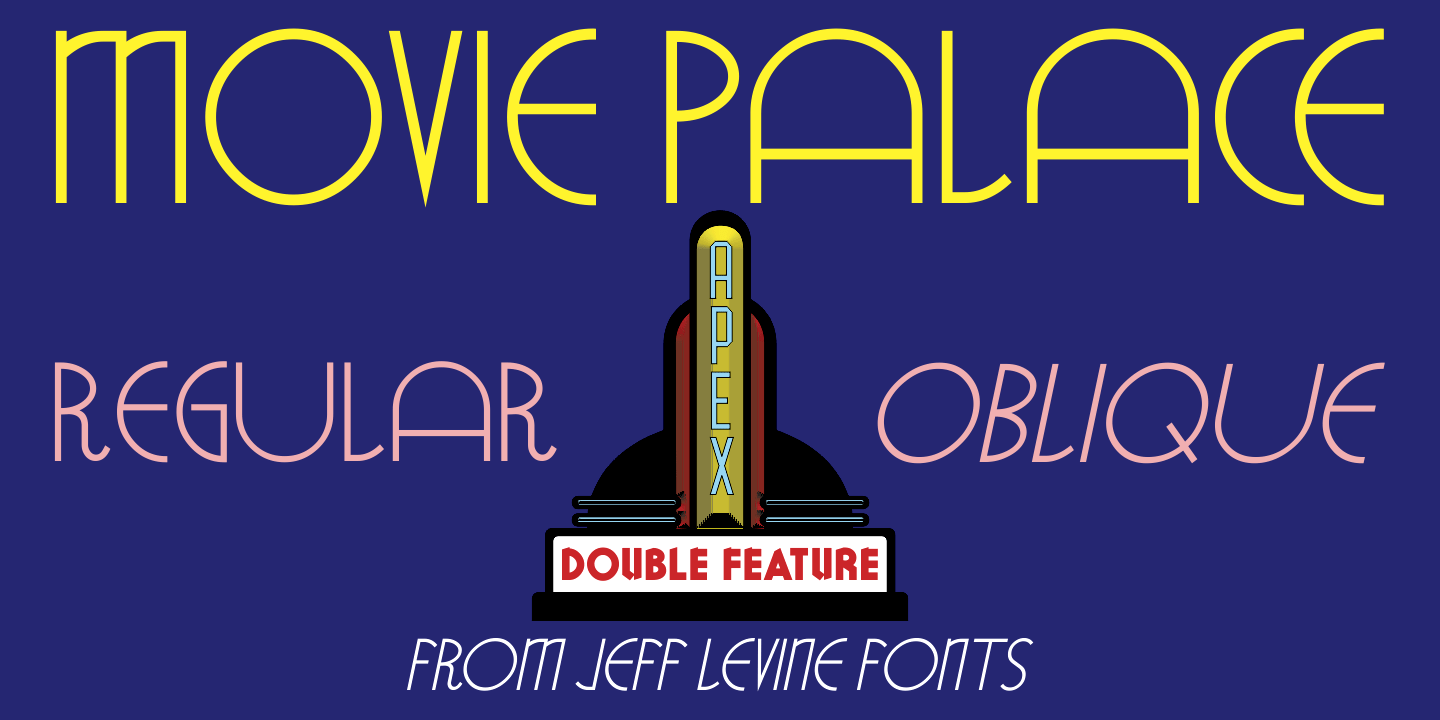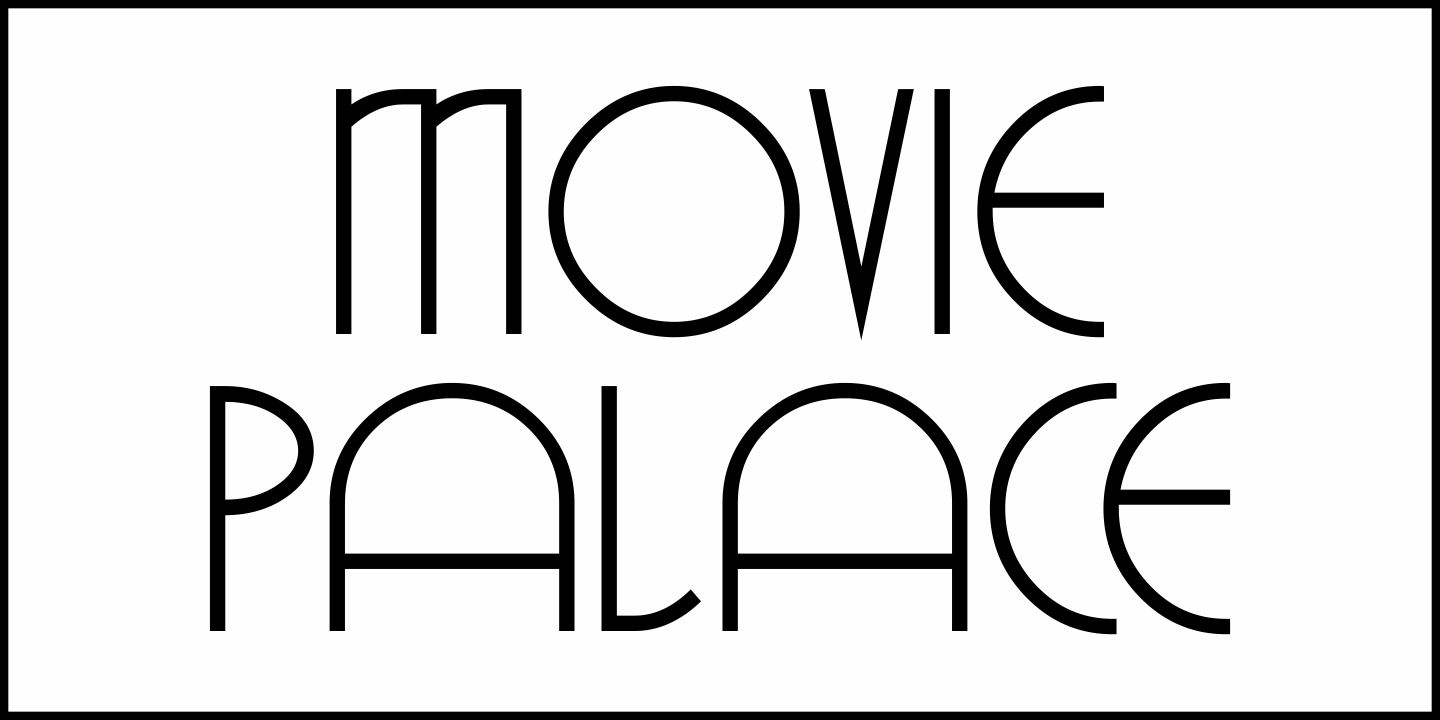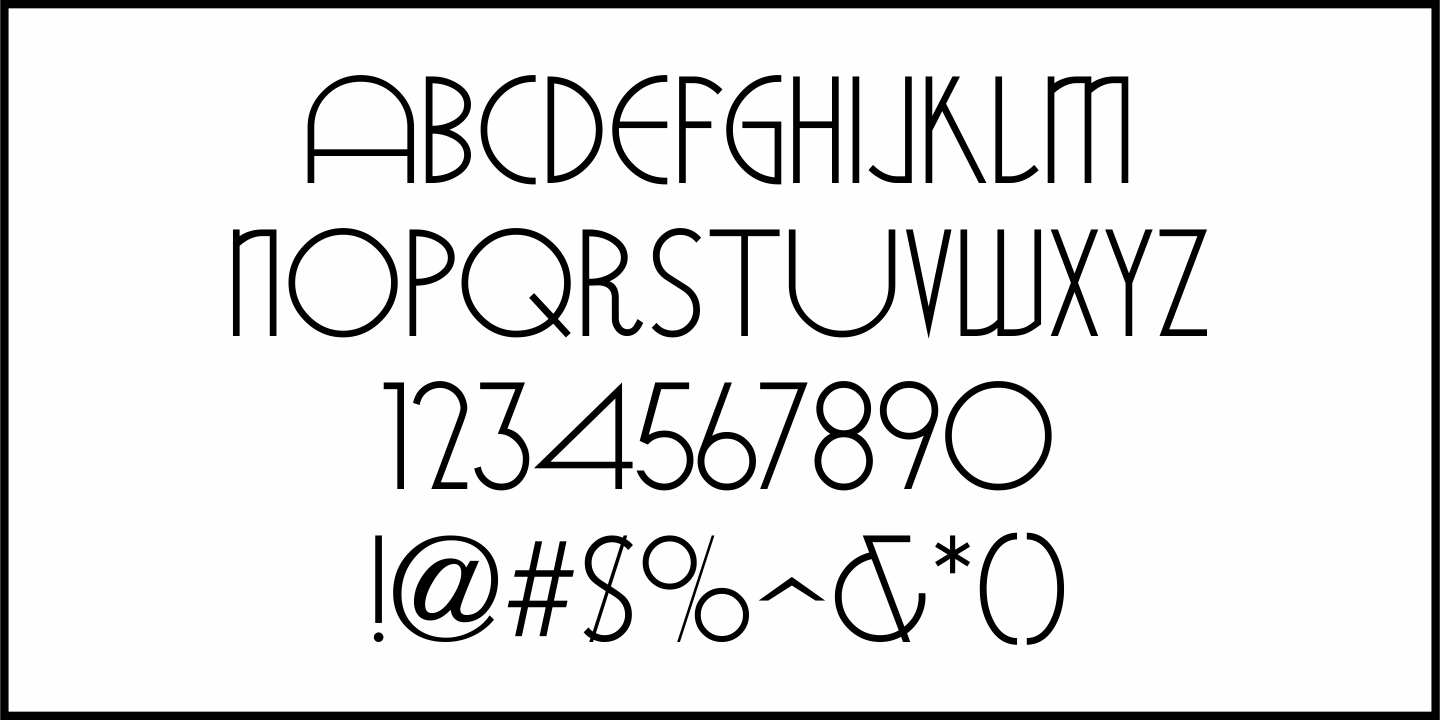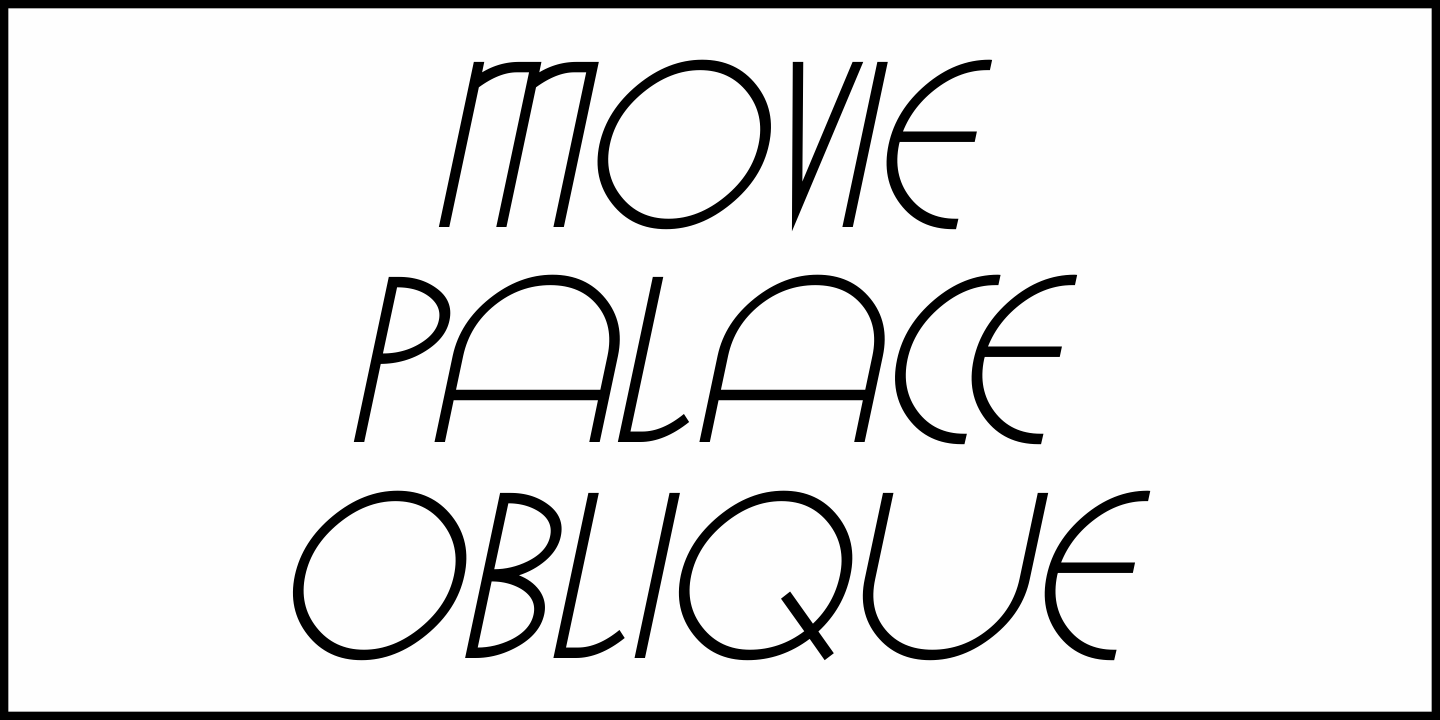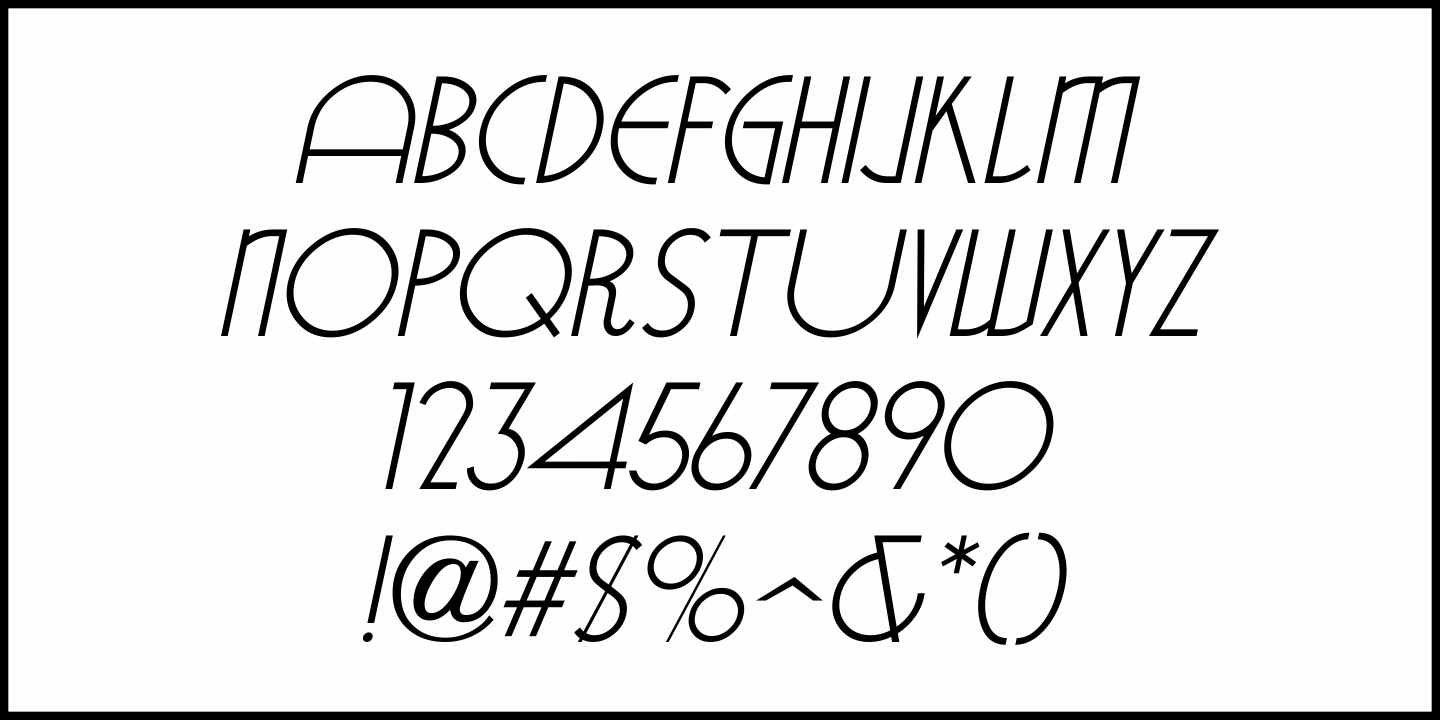
Movie Palace
Some beautiful and stylized Art Deco hand lettering found in the Jan. 6, 1934 issue of the British movie fan publication Picturegoer Weekly inspired Movie Palace JNL, which is now available in both regular and oblique versions.
This monoline design adds a touch of elegance to any
retro projects.
Movie Palace Regular by Jeff Levine Fonts